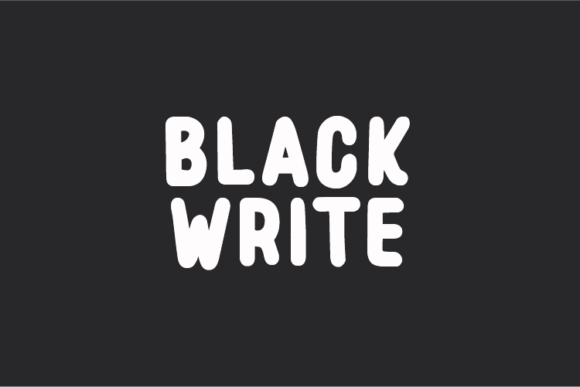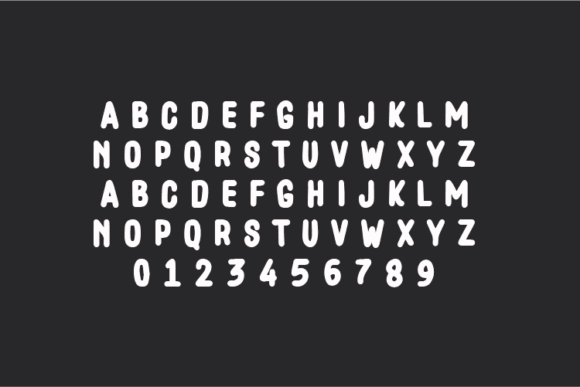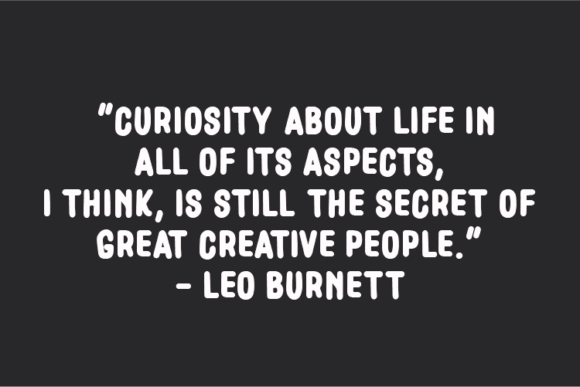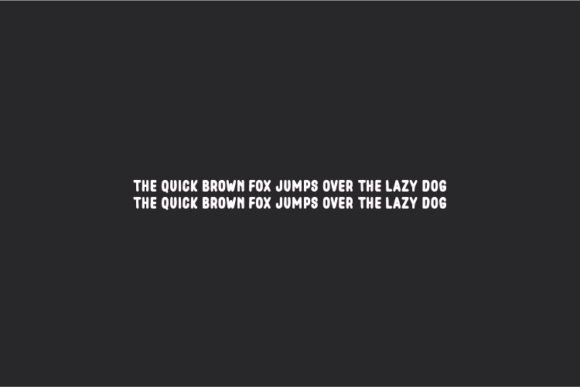
Black Write Font
About Black Write Font
“Black Write” is a natural handwritten font that stands out for its authenticity and unique characteristics. What sets it apart is that each character retains its original indentation without any modification to its nodes. This distinctive feature adds a layer of interest and uniqueness to the font, making it a captivating choice for various design applications.
The untouched nodes in each character contribute to the natural and organic feel of “Black Write.” This font becomes an intriguing canvas for conveying quotes, notes, and messages. Its inherent irregularities and imperfections give it a genuine and handcrafted quality, making it perfect for designs that seek an authentic touch.
“Black Write” shines in applications such as quotes, notes, and t-shirt designs where a natural and unaltered handwriting style is desired. Its raw and unmodified form adds character and personality to your text, making it suitable for product designs that aim for an original and handcrafted aesthetic.
In summary, “Black Write” is not just a font; it’s a statement of natural handwriting in its purest form. Its unique design, with untouched nodes, sets it apart, making it a fascinating choice for designers looking to infuse authenticity and genuine character into their projects. Let “Black Write” be the font that adds a distinctive and captivating touch to your quotes, notes, and product designs.